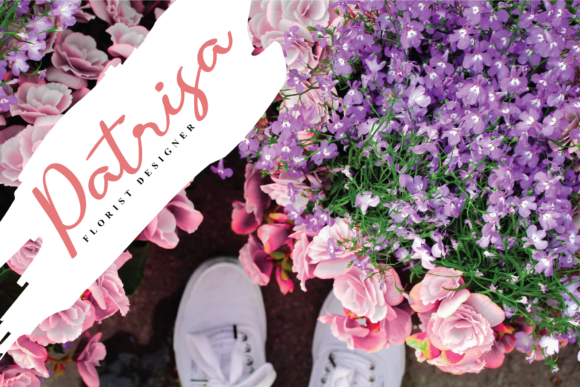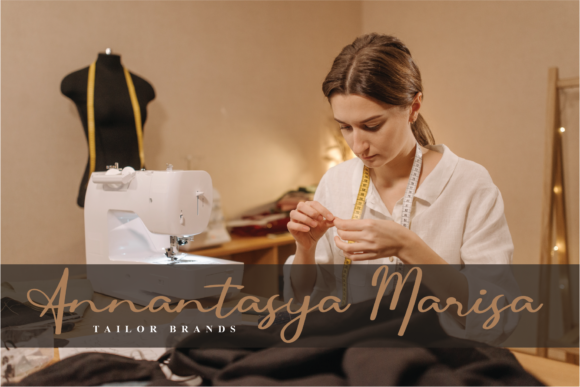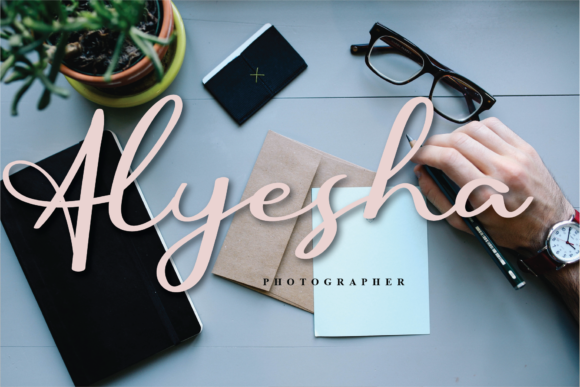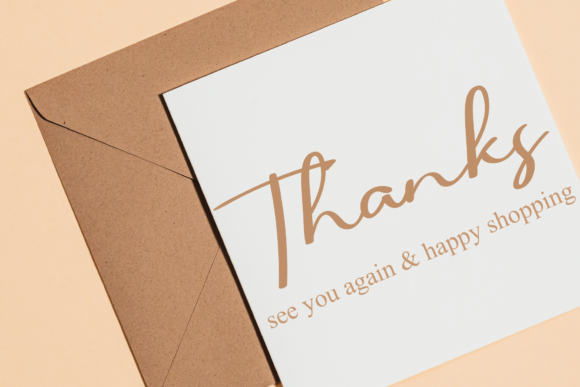
About Master Holland Font
Master Holland is a lovely and timeless handwritten font. It is the best choice for creating eye catching logos, branding and quotes. Every letter has a unique and beautiful touch, which will make your design come alive!